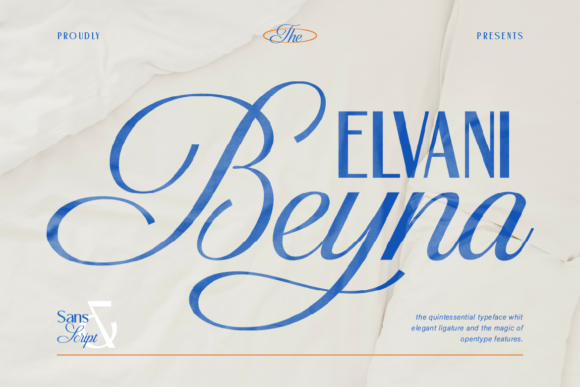
Find Your Perfect Match: Discover the Timeless Duo of Beyna Elvani Font
As designers, we’ve all been there – staring at a blank page, trying to decide on the perfect font combination for our latest project. And then, it hits us: the perfect pairing that elevates our design from ordinary to extraordinary. For me, that moment came when I discovered the Beyna Elvani Font, a beautiful union of two distinct styles that complement each other in perfect harmony.
This elegant font duo is designed to add a touch of sophistication and modernity to any design project. With Beyna Elvani Font, you get the best of both worlds – the flowing, handwritten feel of Beyna and the clean, stylish sans serif of Elvani. Whether you’re designing for fashion, branding, or anything in between, this versatile font combination is sure to impress.
- Unique Characteristics: Beyna Elvani is a unique, modern calligraphy font with a mix of elegant and playful styles, perfect for creating visually appealing designs
Beyna Elvani Font Review
Overall, I found the Beyna Elvani font to be a beautiful and elegant choice for various design projects. ✨ Its intricate details and subtle nuances in letterforms make it perfect for creating sophisticated and high-end designs.
The font’s unique blend of calligraphic and serif styles lends itself well to a wide range of applications, from luxurious branding and packaging to elegant invitations and stationery. ✨ Its excellent legibility also makes it suitable for body text, ensuring that the message is conveyed clearly and effectively.
- Unique blend of calligraphic and serif styles
- Elegant and sophisticated appearance
- Excellent legibility
- Perfect for high-end designs and luxurious branding
While the Beyna Elvani font is a stunning choice for many projects, there are some limitations to consider. ⚠️ For one, the font may be too ornate for certain applications, such as digital screens or informal designs, where a more straightforward font may be more suitable. Additionally, the font’s intricate details may make it more challenging to use in very small sizes or for extended blocks of text.
The Beyna Elvani font is a stunning and elegant choice for designers looking to create sophisticated and high-end designs. While it may have some limitations, its unique blend of styles and excellent legibility make it a valuable addition to any design toolkit.
Alternatives to Beyna Elvani Font
Great Vibes Font is a beautiful, handwritten script font perfect for creating a warm and inviting atmosphere. It is ideal for use in branding, packaging, and advertising materials where a personal touch is required.
Great Vibes Font is similar to Beyna Elvani Font in its elegant and cursive style, but it has a more fluid and dynamic feel. It is also more versatile and can be used in a wider range of applications, from formal to informal.
Alex Brush Font is a elegant, brush-script font that exudes sophistication and refinement. It is perfect for use in high-end branding, luxury packaging, and formal invitations where a touch of elegance is required.
Alex Brush Font is similar to Beyna Elvani Font in its refined and cursive style, but it has a more subtle and understated feel. It is also more formal and can be used in more traditional and conservative applications.